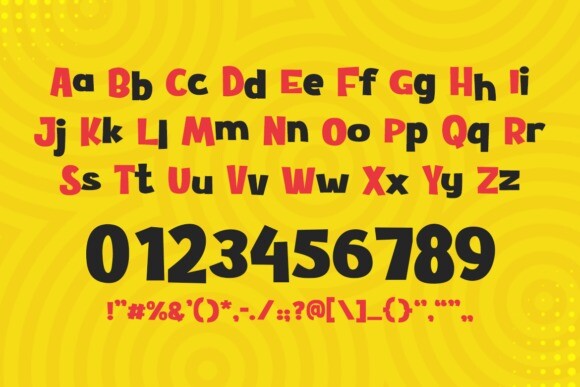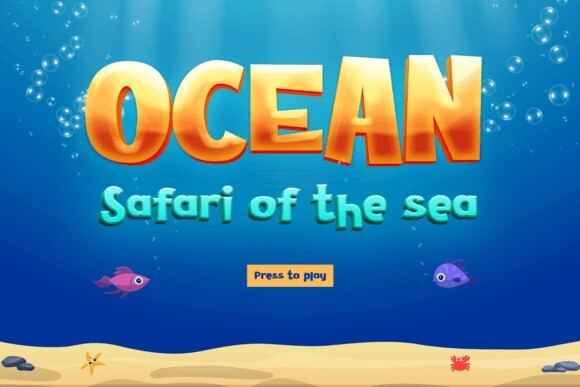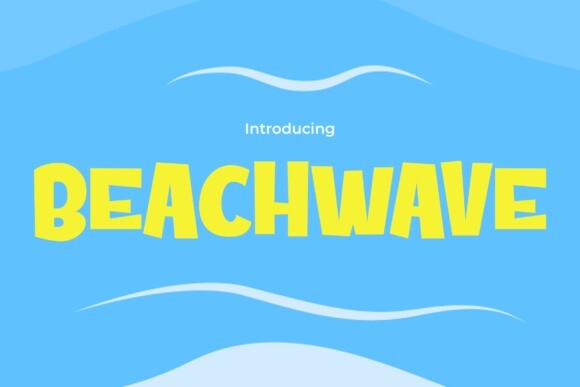
Beachwave Font
Beachwave Font, a distinctive display font that breathes the carefree spirit of the groovy era into modern design. Its unique, wave-like curves and dynamic letterforms are meticulously crafted to capture and hold attention, making it an ideal choice for a wide range of creative projects. Whether you’re designing a vibrant logo, an eye-catching poster, or a standout social media graphic, Beachwave brings a bold and energetic flair that can transform any content into a visually captivating statement.